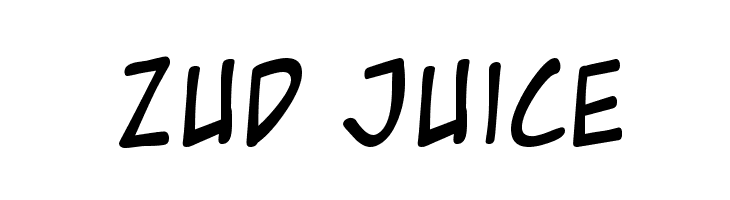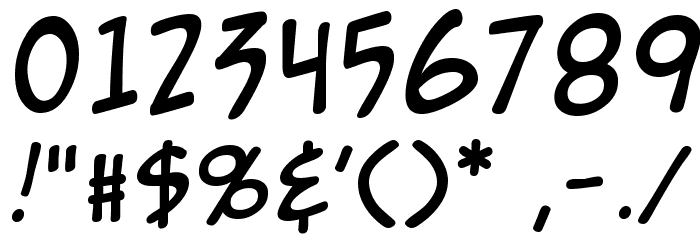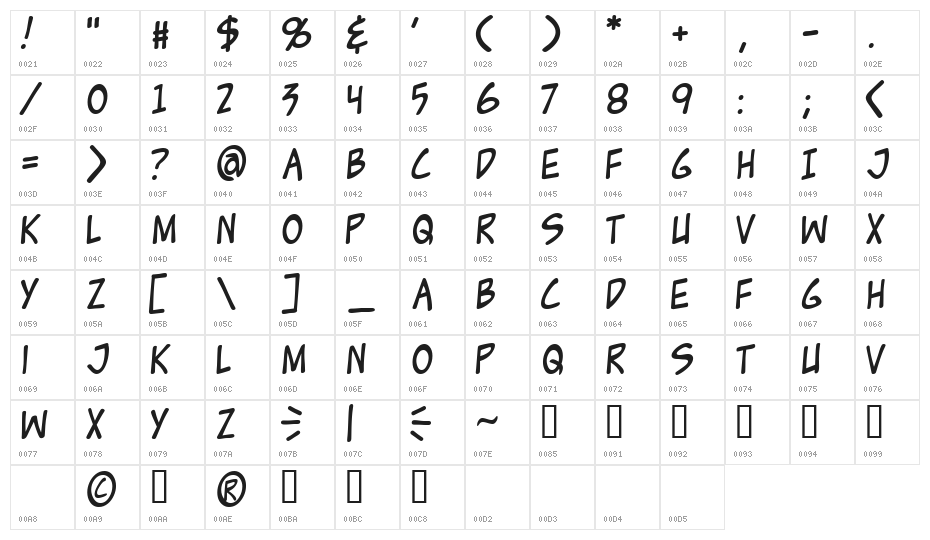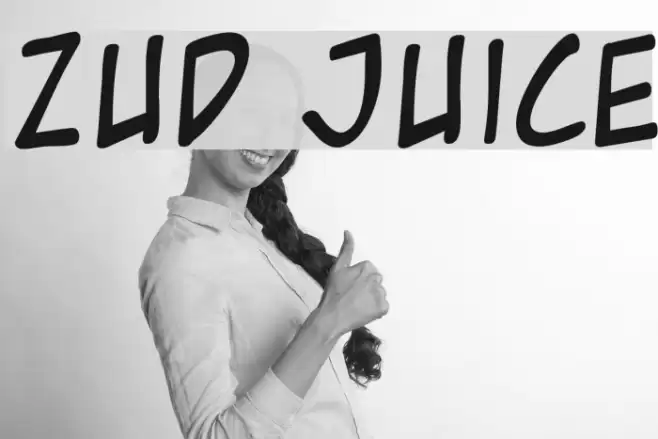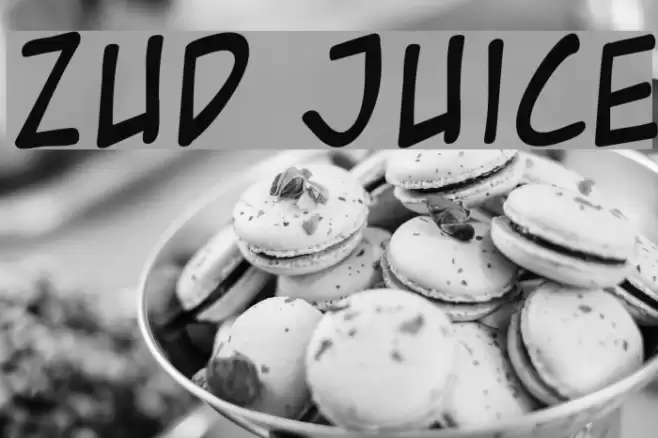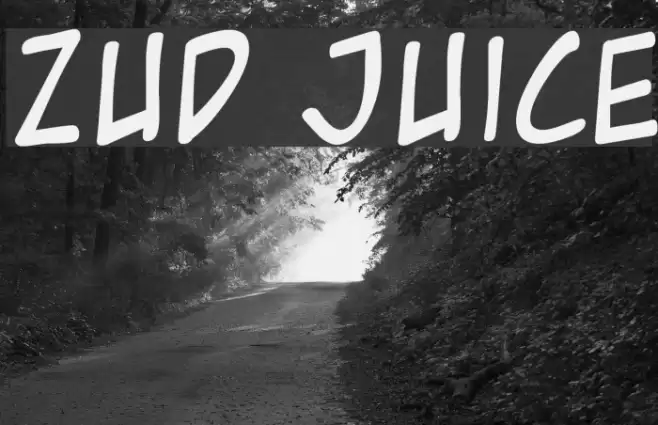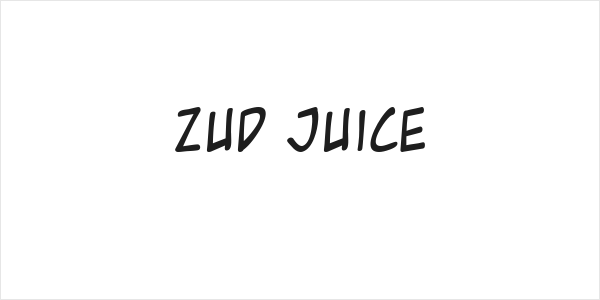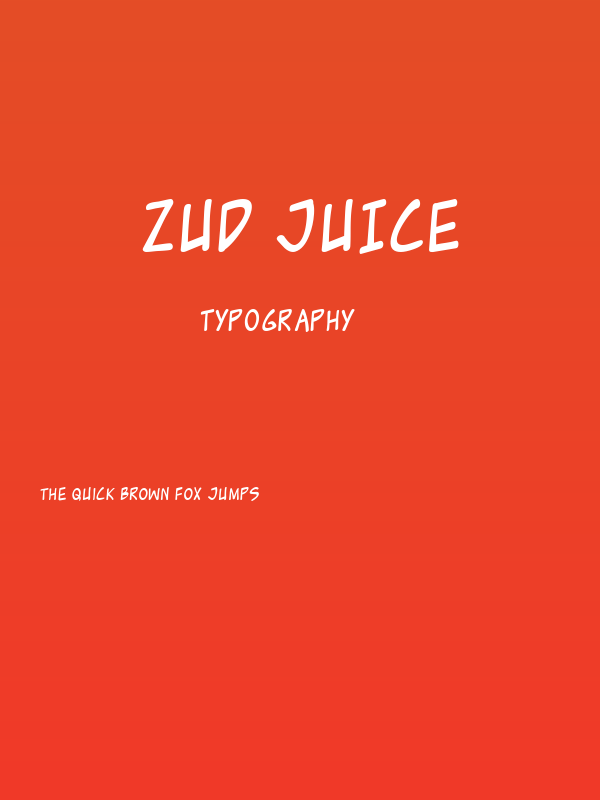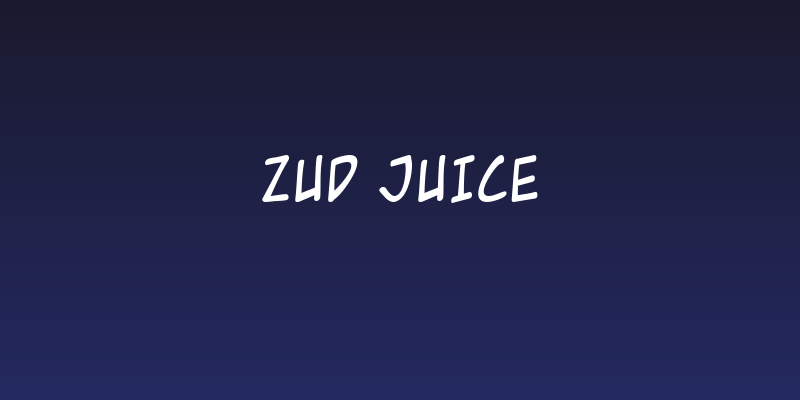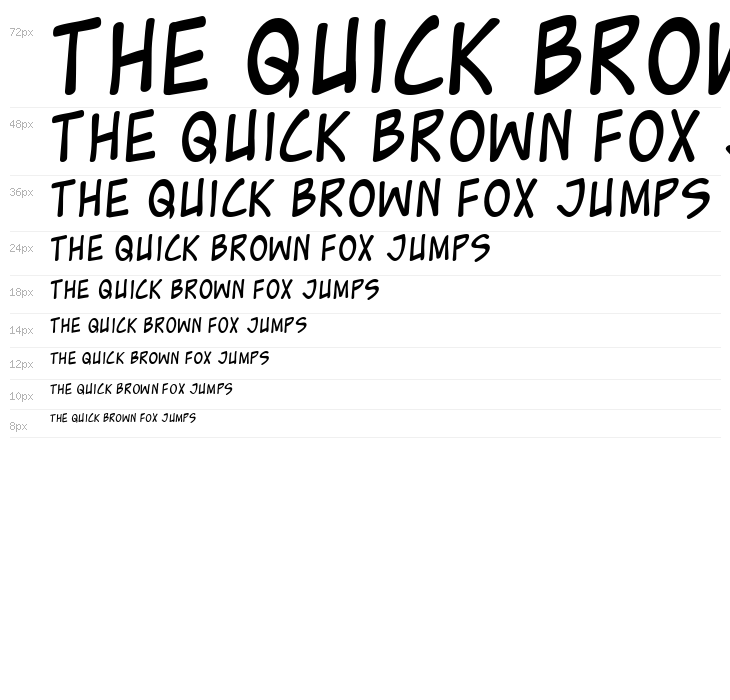
Zud Juice Font
Zud Juice Description
This font features a playful and casual handwritten style, characterized by its smooth, rounded strokes and slightly irregular letterforms. The letters have a dynamic flow, giving a sense of movement and energy. The uppercase and lowercase letters maintain a consistent style, with a slight slant that adds to the informal feel. The numerals and special characters are crafted with the same playful touch, making them blend seamlessly with the alphabet. This font exudes a friendly and approachable vibe, perfect for projects that require a personal and informal touch.
| Use Case | Headlines, Informal text, Branding |
| Proposed Projects | Ideal for children's books, greeting cards, casual branding, and social media graphics. |